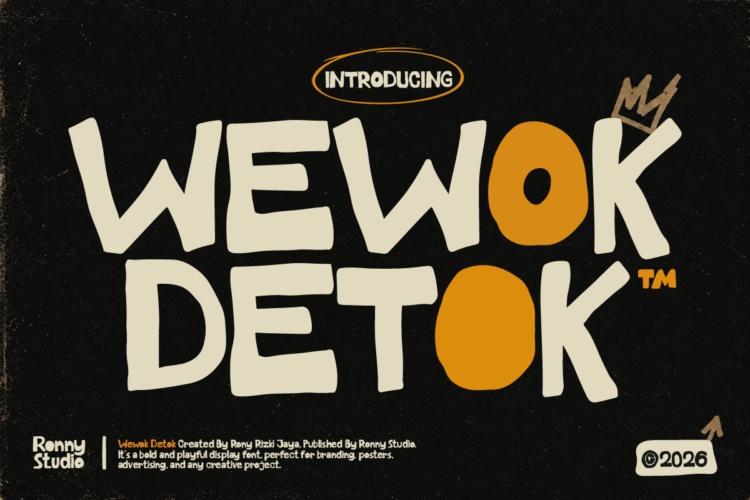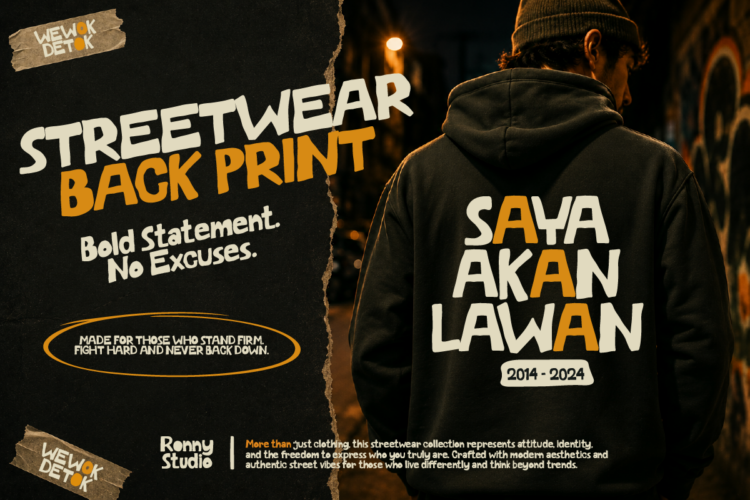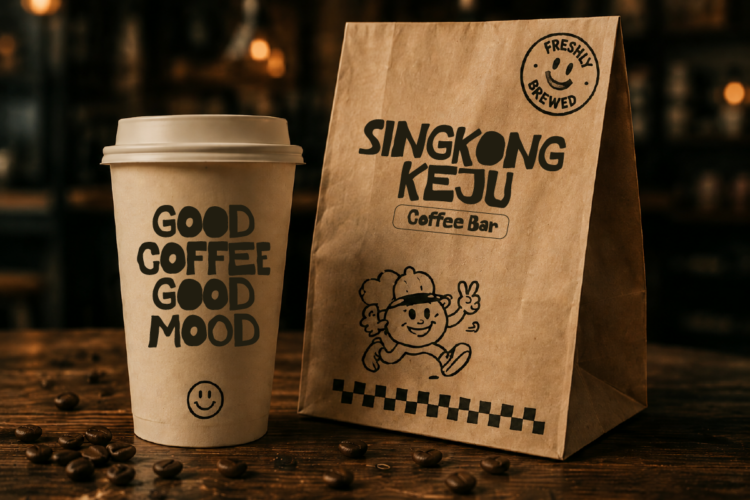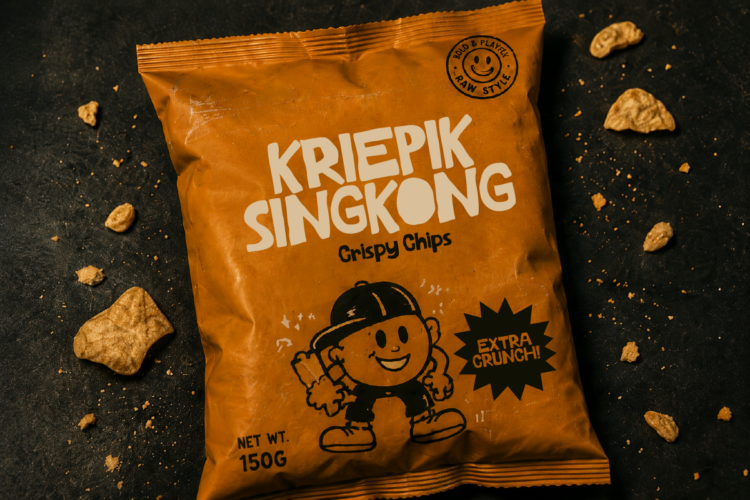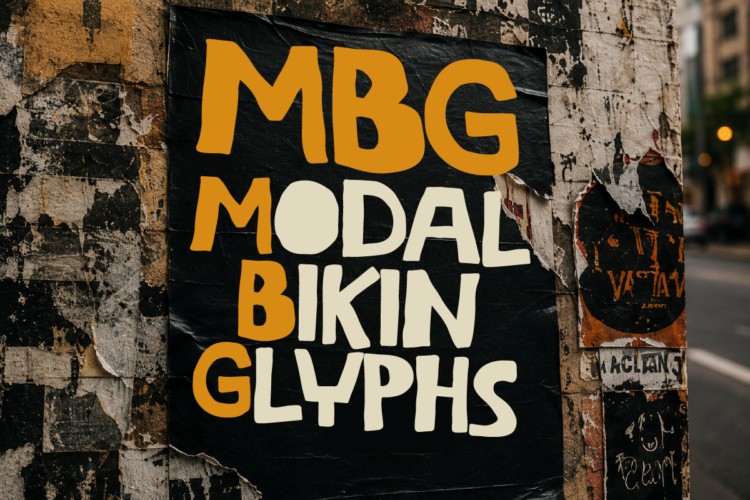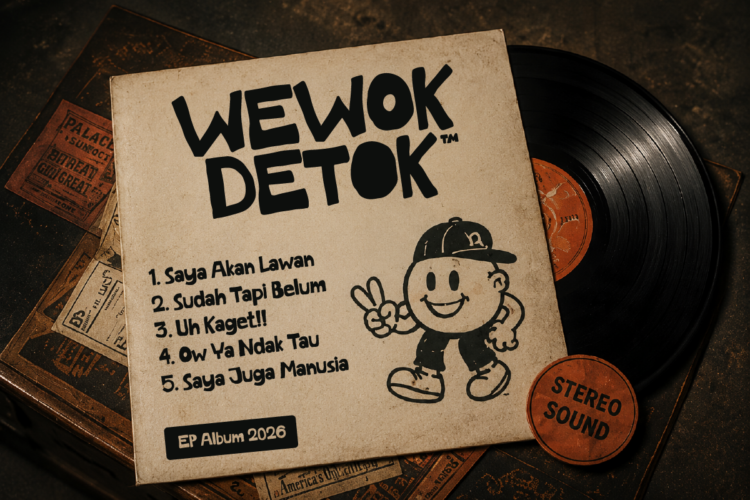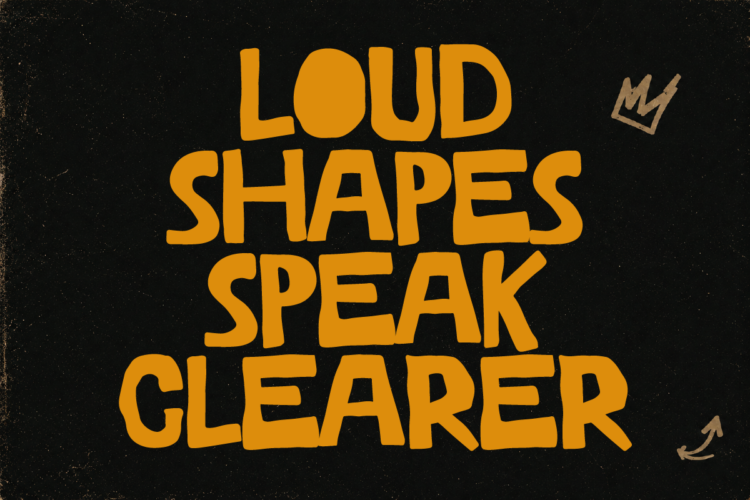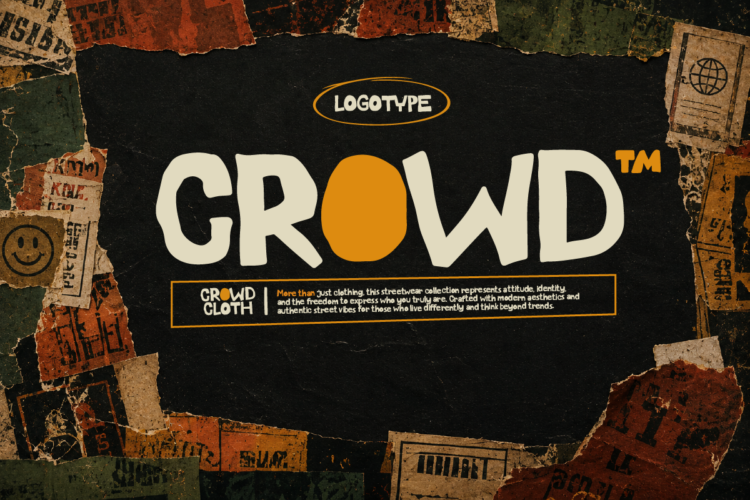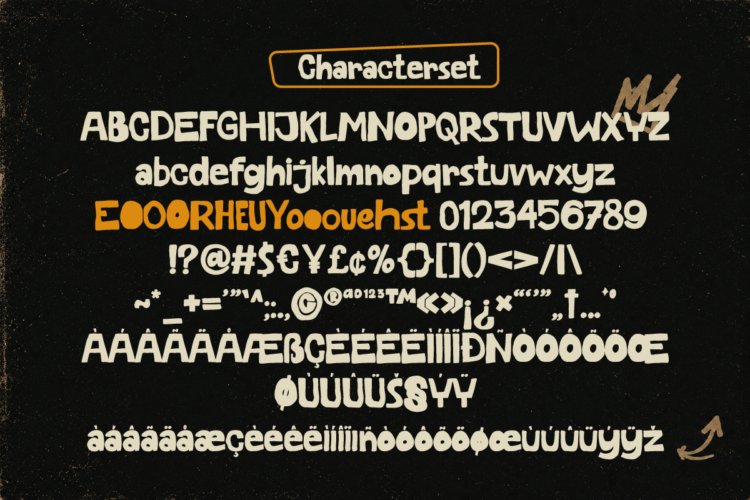
🎨 Introducing: Wewok Detok – Playful Bold Display Font
Wewok Detok is a fun and bold display font with playful hand-drawn characters that instantly grab attention. Perfect for packaging, posters, branding, social media, logos, headlines, and creative projects that need a unique and energetic look.
🔥 Perfect For
Packaging, posters, branding, stickers, social media, album covers, logos, and bold typography designs.